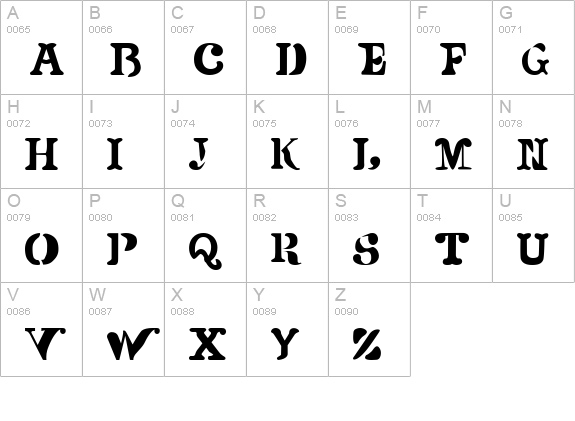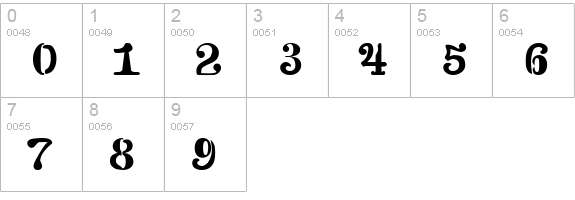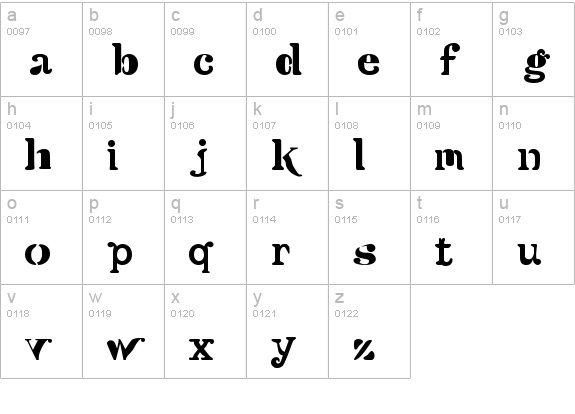
Versu Font Details
Introducing Versu, a font that effortlessly combines elegance and modernity, making it the perfect choice for various design projects. With its clean lines and sophisticated curves, Versu adds a touch of sophistication to any text or headline. Whether you're creating a logo, designing a website, or crafting a stylish invitation, this versatile typeface is bound to impress. One of the most appealing aspects of Versu is that it is completely free. Yes, you heard it right! This exquisite font is freely available to download at FontsMarket.com, allowing you to elevate your designs without breaking the bank. Versu's versatility is further enhanced by its wide range of weights and styles, enabling you to experiment with different looks and create a unique visual identity. From light and airy to bold and impactful, this font offers endless possibilities to bring your creative vision to life. The attention to detail in Versu is truly remarkable. Each letter is meticulously crafted, ensuring optimal legibility and visual harmony. Its balanced proportions and graceful letterforms make it a joy to read, captivating readers with its elegant charm. Versu also boasts extensive language support, making it suitable for projects that require multilingual capabilities. Whether you're designing for an international audience or simply want to add a touch of sophistication to your typography, this font has got you covered. So why wait? Unleash your creativity and download Versu today, for free, at FontsMarket.com. Elevate your designs with this stunning font and make a lasting impression on your audience.